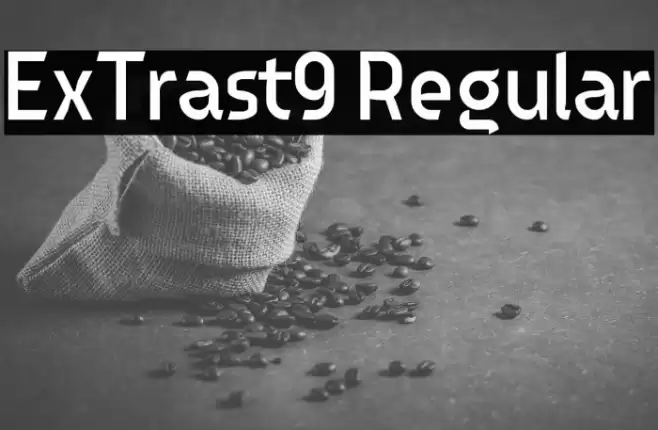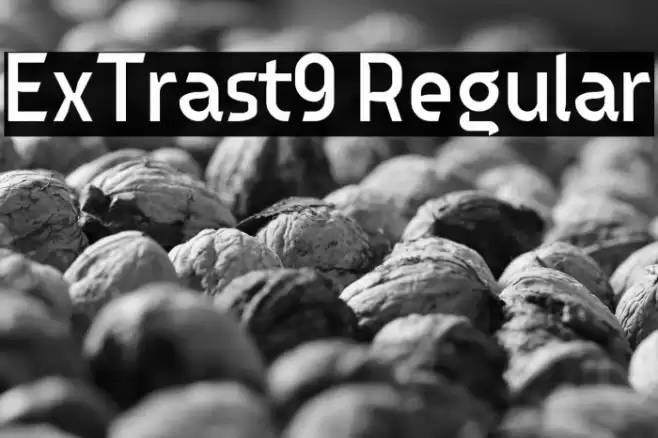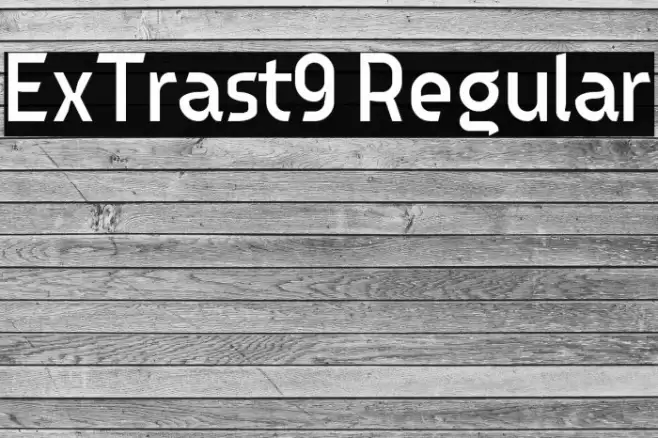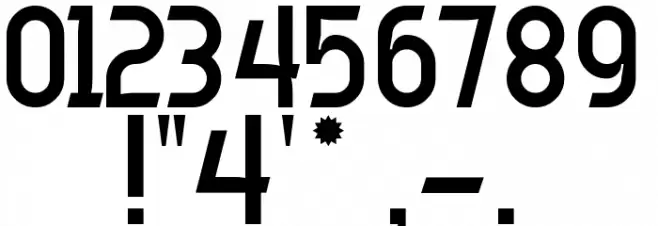
ExTrast9 Regular Font
ExTrast9 Regular Description
This font features a modern and geometric design with clean, straight lines and a uniform stroke width. The uppercase letters are bold and assertive, while the lowercase letters maintain a consistent style that complements the uppercase. The numerals are distinct and easy to read, with a slightly futuristic appearance. Special characters are well-integrated, maintaining the overall aesthetic. The font's structure is balanced, making it suitable for a variety of design applications.
A modern, geometric font with clean lines and uniform stroke width from Uncategorized fonts.
- Proposed Projects: Ideal for branding, advertising, and digital media projects where a modern and clean look is desired.
- Use Case: Headlines, Logos, Digital Media